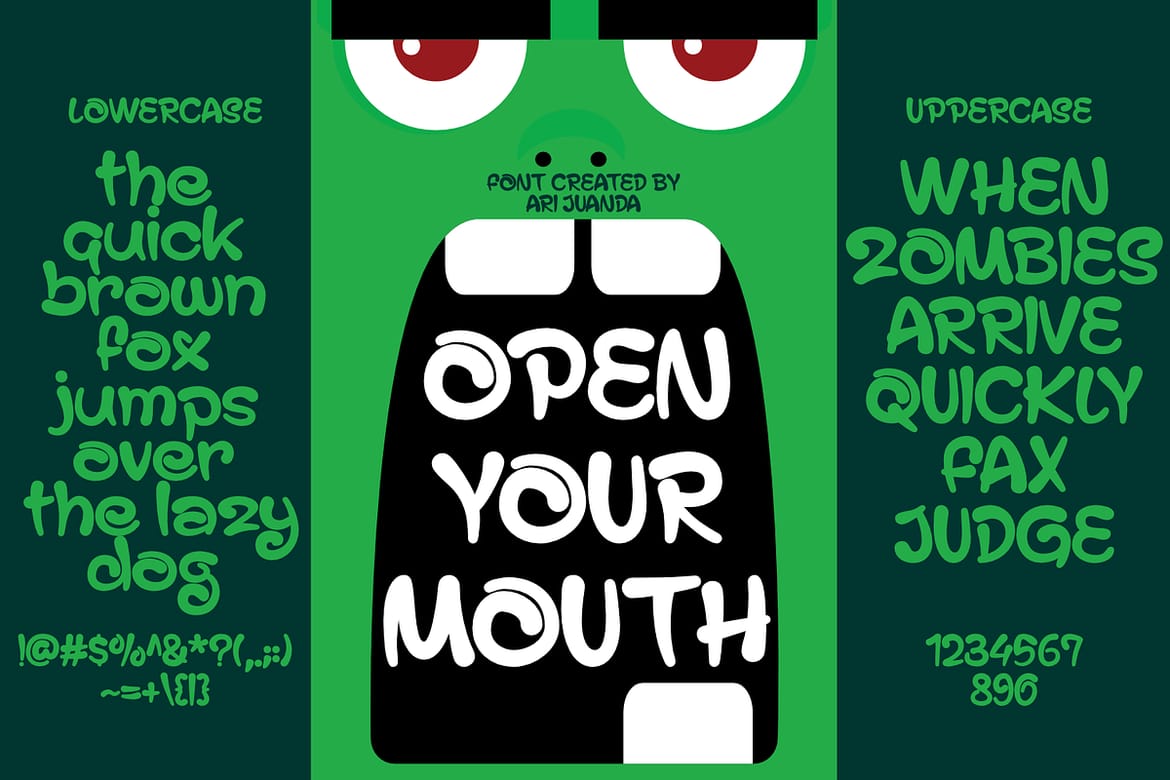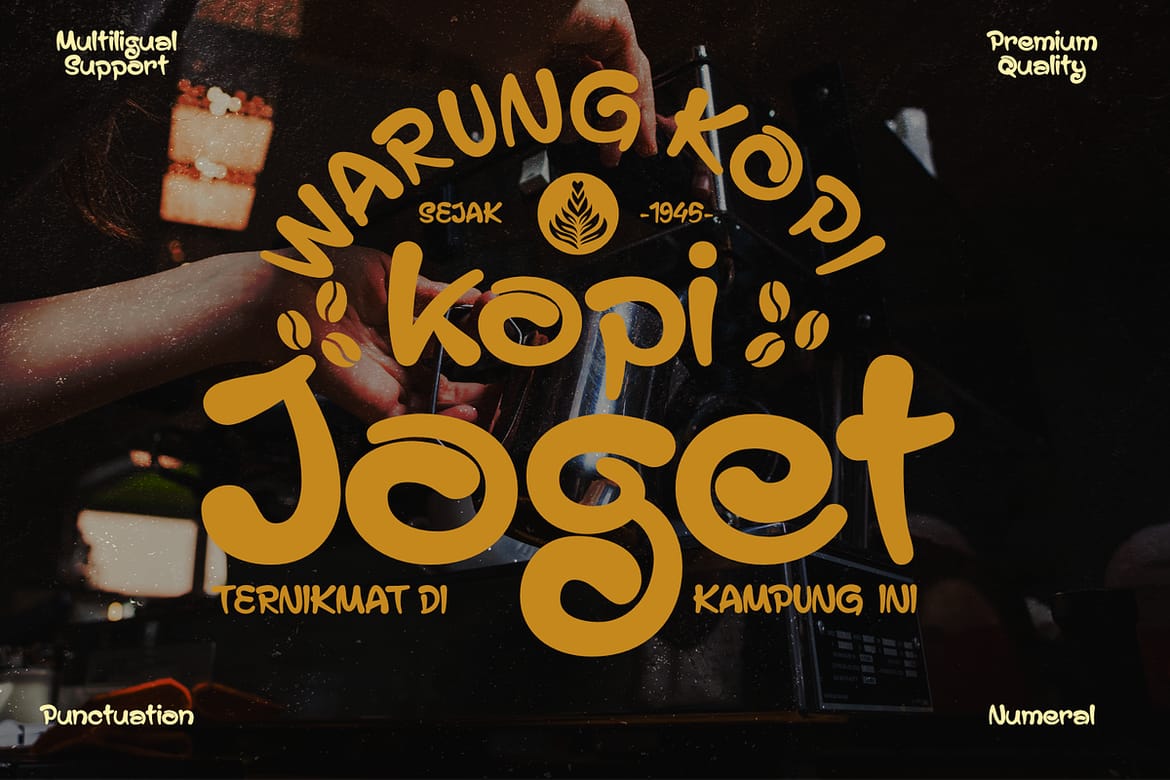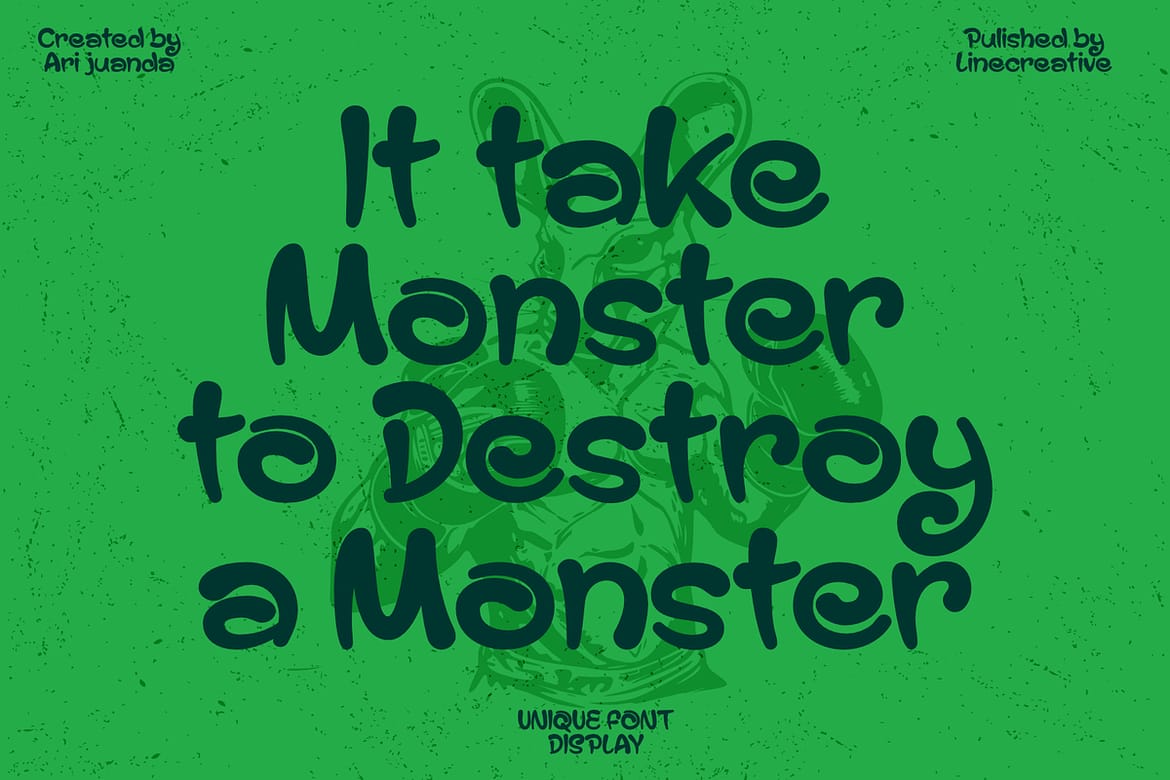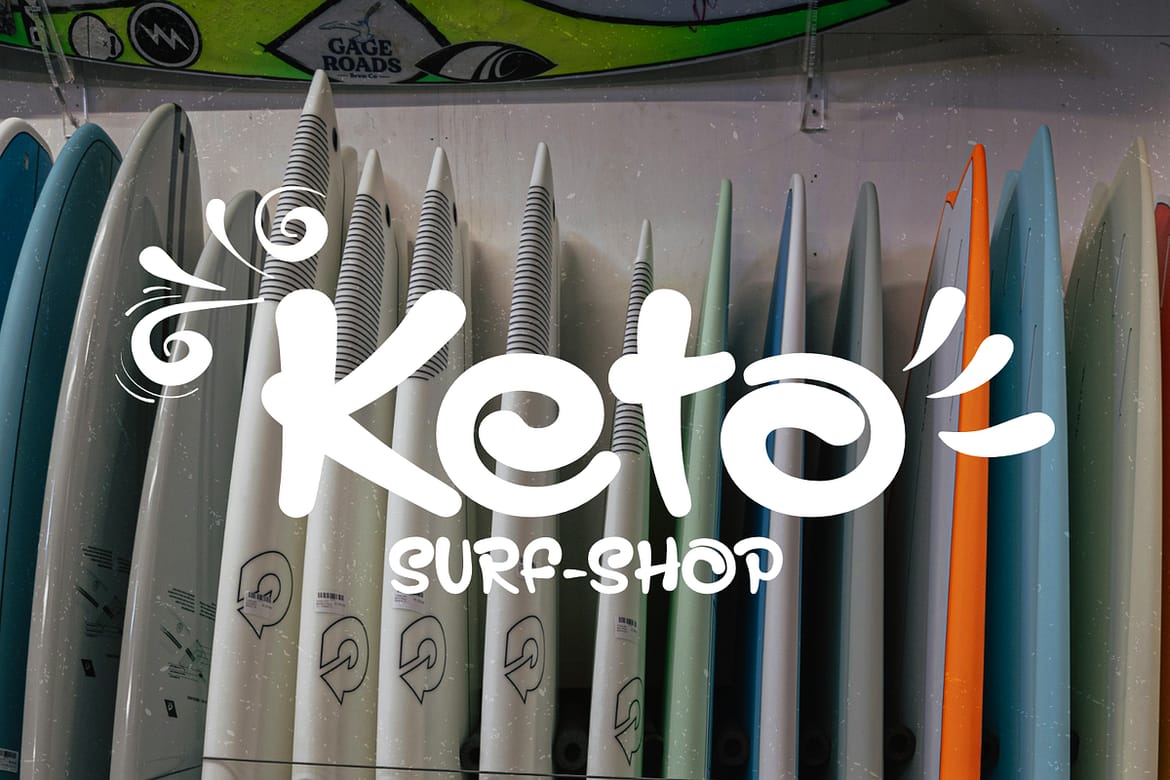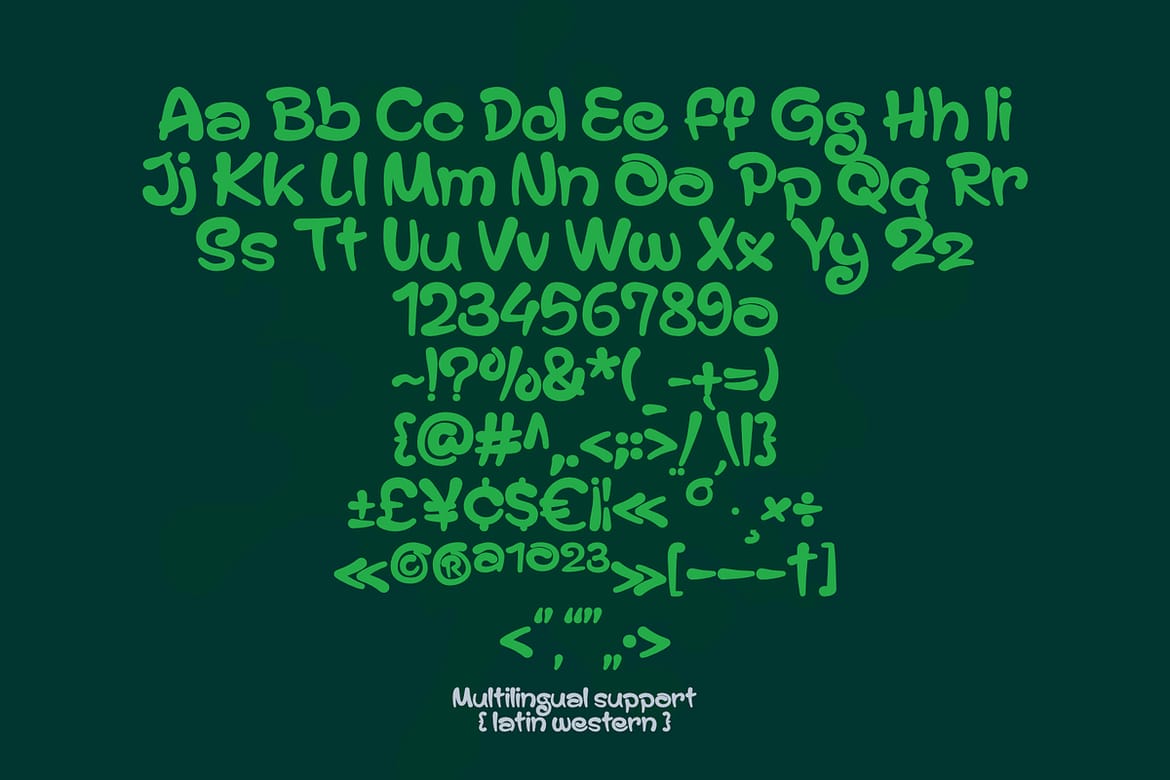
Gope is a unique, hand-drawn style font featuring maze-like letterforms with organic, flowing lines. Its irregular yet rhythmic shapes create a playful and relaxed personality, while the intricate labyrinth design also brings a touch of mystery and horror, making it versatile for various creative themes. This font includes a complete set of uppercase, lowercase, punctuation, and numerals, allowing it to work seamlessly for titles, posters, packaging, illustrations, and artistic projects—whether bright and whimsical or dark and atmospheric. Gope delivers a balance of expressive freedom and distinctive structure, making it an excellent choice for designers seeking typography with strong character and visual uniqueness. Includes OTF, TTF, WOFF formats, multilingual support, punctuation and numerals.
- Maze-like hand-drawn letterforms
- Playful yet mysterious character